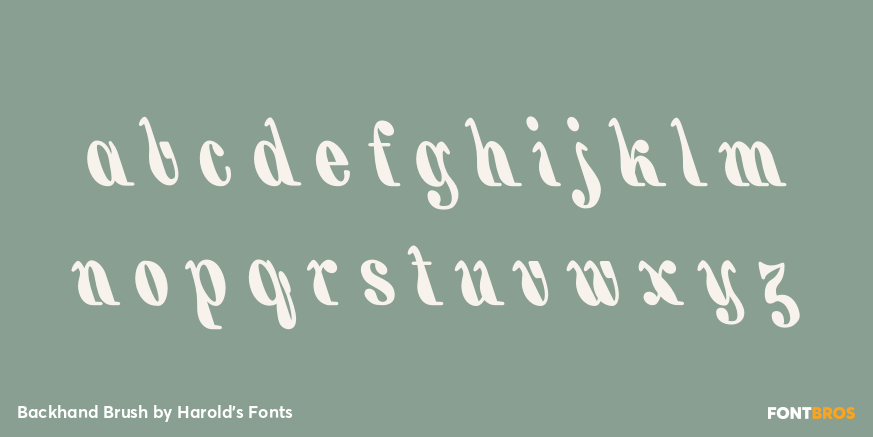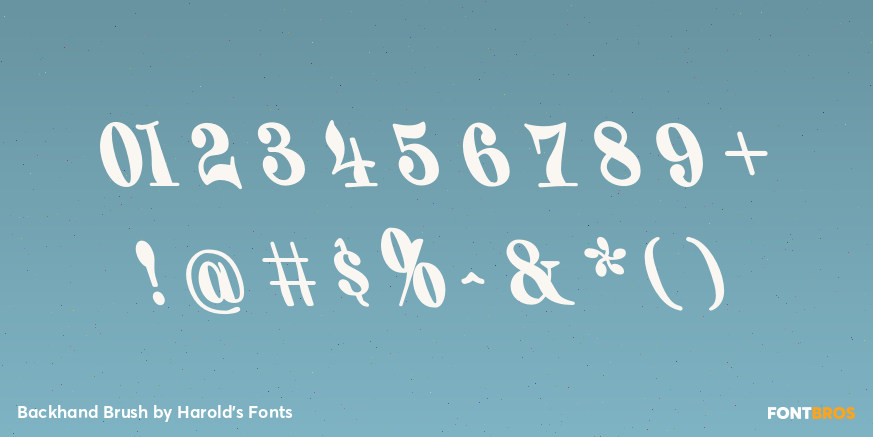
Backhand Brush
Font Family by Harold's Fonts
BACKHAND BRUSH is my re-creation of a classic 19th-century style of hand lettering, also known as a "marking" alphabet. Like some Victorian and Art Nouveau fonts, it was revived in the psychedelic era. My font is completely redrawn from an antique guide to hand lettering. I have regularized it somewhat (maintaining a constant 18-degree slant) but also tried to keep a slightly random brush feel.